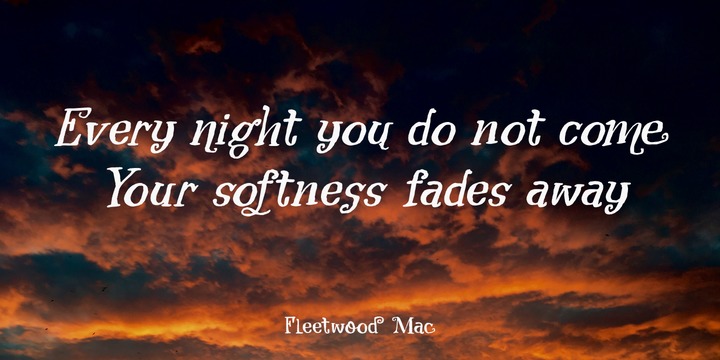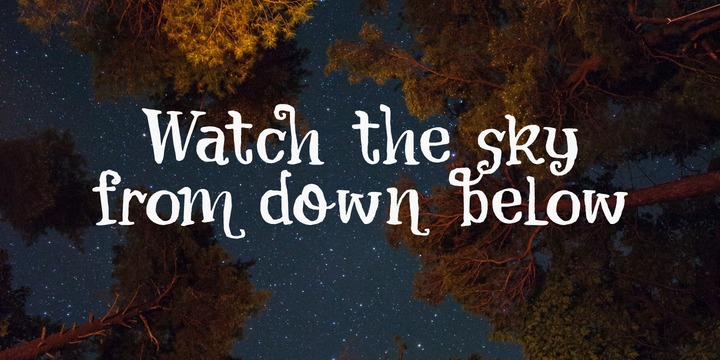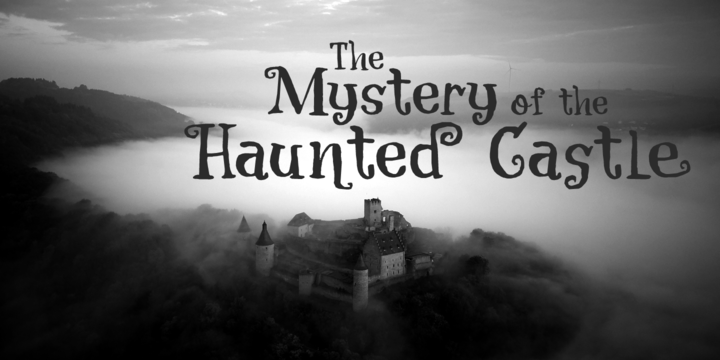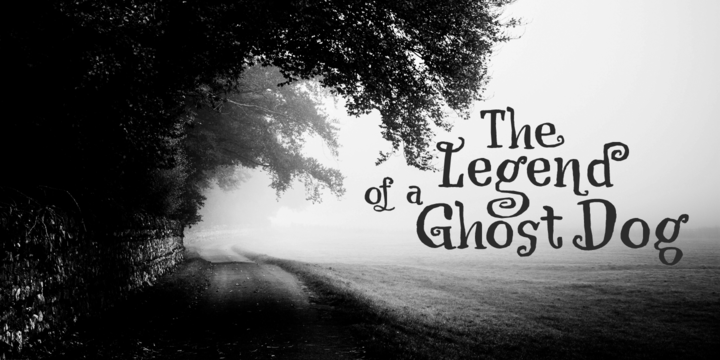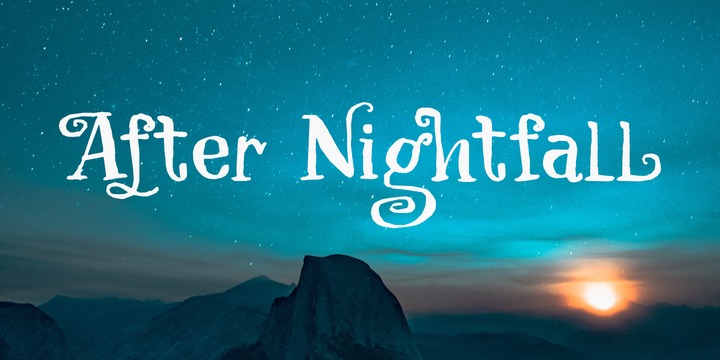
After Nightfall is a handmade fairytale font. It was called Bunting Nook first (after a spooky story of a black dog that haunts a town in Britain), but I figured it was a bit of a weird name, so I settled for After Nightfall.
This font comes with some lovely swashes, which should be used sparingly. But that, of course, is entirely up to you.